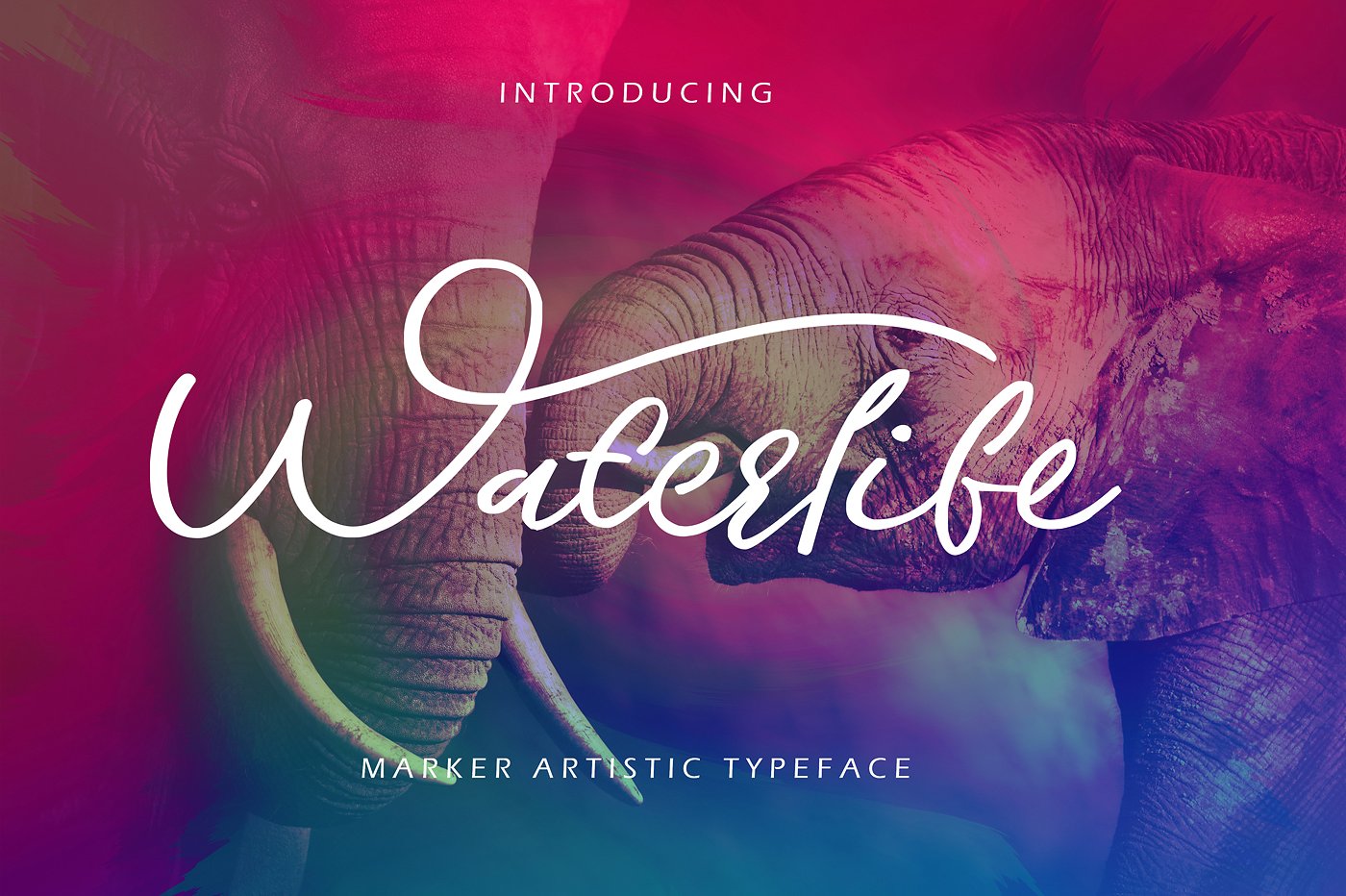
Waterlife Script
Waterlife Script Font
Let me introduce you the font Waterlife. It flows like a signature while you type it. It really shows the art of hand-work. It is very legible even though its nature looks like it has extreme lines. It is really unique in this regard. Awesome! Isn’t it ?  Don’t Remember only 1 week 10 dollars.